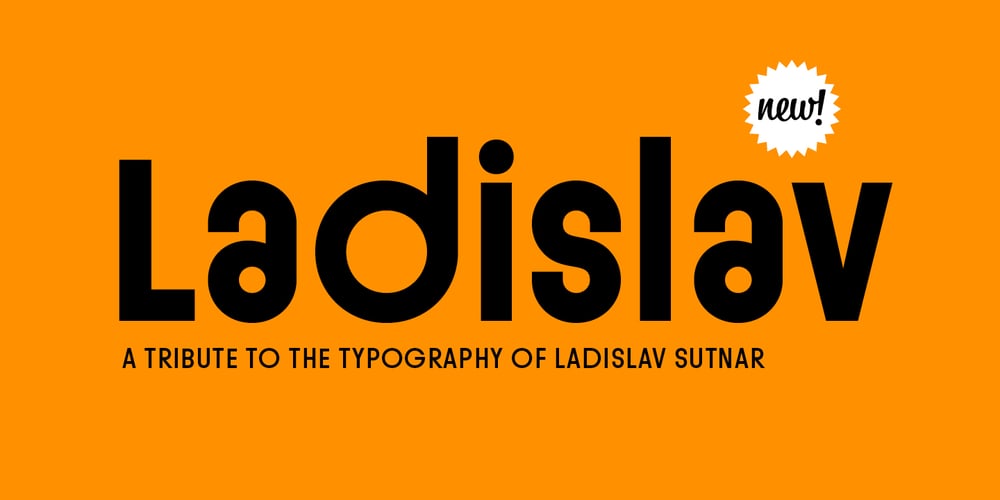
Ladislav Font Family was designed by Tomáš Brousil and published by Suitcase Type Foundry. Ladislav contains 13 styles and family package options. The Ladislav font revitalises Sutnar’s legacy, while not explicitly copying any of his original fonts. It however keeps true to their technicist character and initial principles of character creation – a simple modular system of combined geometrical segments. This approach affects all round shapes of capital and lowercase letters, as well as the shapes of the majority of numbers.